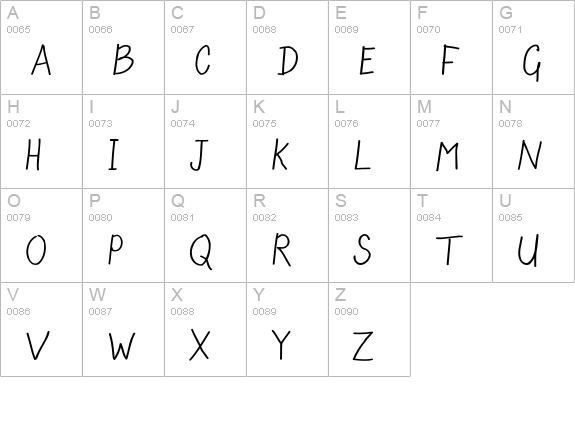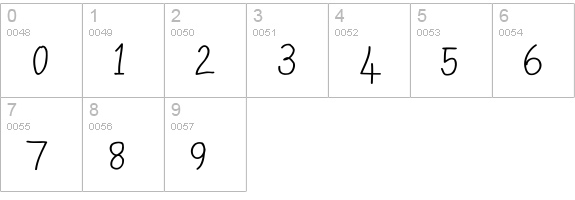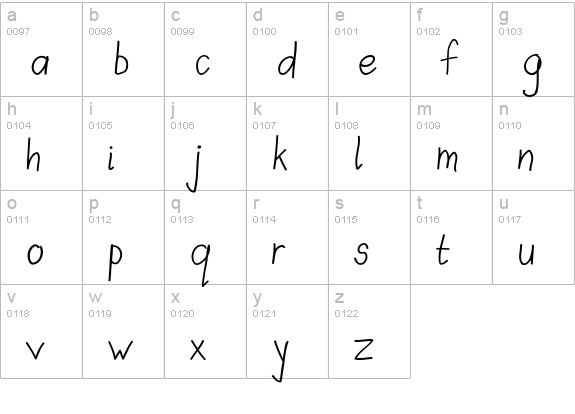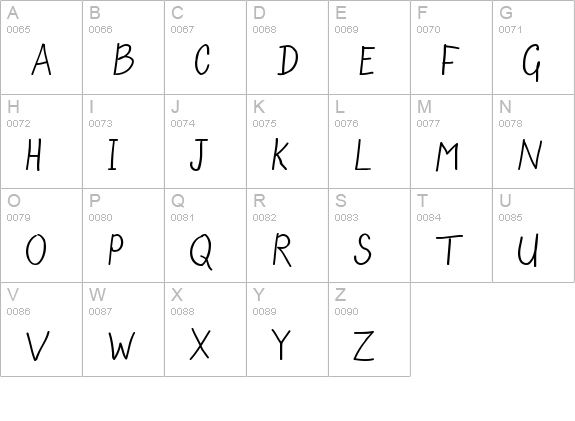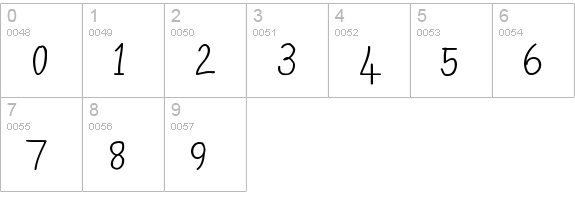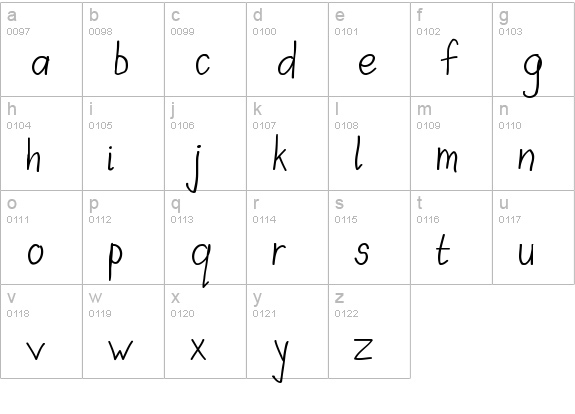
Scrawny Kids Font Details
Introducing Scrawny Kids font, a whimsical and playful typeface that captures the essence of childhood imagination. This font is perfect for projects that require a touch of innocence and creativity, making it an ideal choice for children's books, nursery rhymes, party invitations, and more. Scrawny Kids font features a hand-drawn style with uneven lines and quirky characters, giving your designs a unique and charming appeal. Its scrawny strokes add a sense of authenticity and imperfection, bringing a delightful handmade feel to any project. But what makes Scrawny Kids font even more special is that it is completely free! That's right, you can download this font for free at FontsMarket.com. We believe that creativity should be accessible to all, and by offering Scrawny Kids font as a free resource, we hope to inspire and empower designers, writers, and artists of all ages to bring their ideas to life. Whether you're designing a poster for a children's event, creating a logo for a toy store, or crafting a whimsical greeting card, Scrawny Kids font will add a touch of magic and playfulness to your designs. So don't wait another minute, head over to FontsMarket.com and get your hands on this delightful font for free. Let your imagination run wild with Scrawny Kids font and watch your designs come to life with joy and wonder.